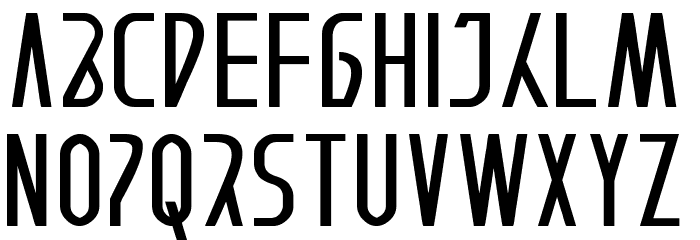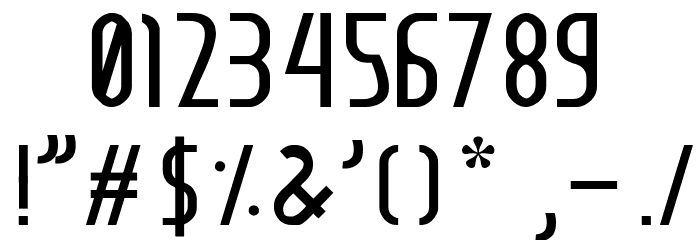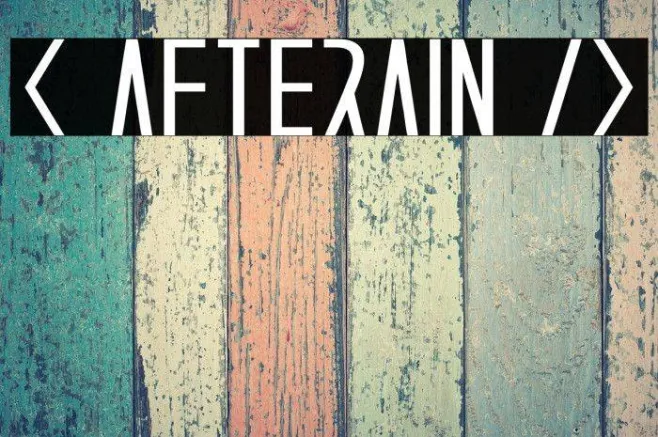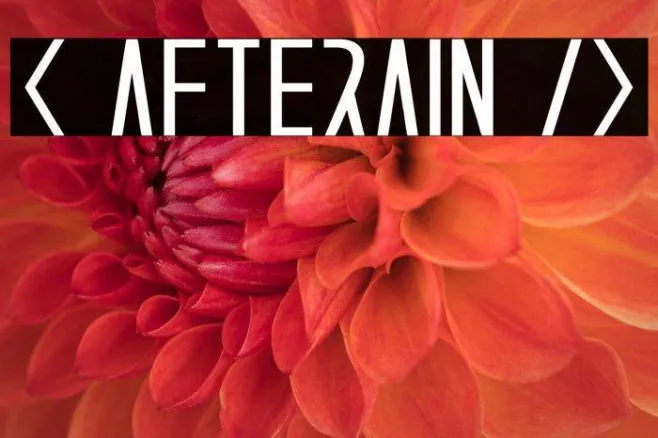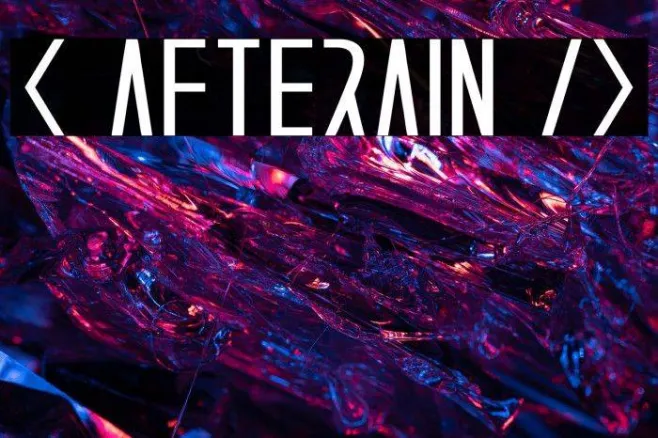
< AFTERAIN /> Font
This font features a modern and geometric design with sharp angles and clean lines. The uppercase letters are distinct with a futuristic appearance, while the lowercase letters maintain a consistent style that complements the uppercase. The numerals are bold and easy to read, fitting well with the overall aesthetic. Special characters are designed to match the angular and sleek look of the alphabet, making this font suitable for a variety of digital and print applications. The uniformity in stroke width adds to its modern appeal, making it ideal for projects that require a contemporary and edgy feel.
A modern, geometric font with sharp angles and clean lines.
- Proposed Projects: Ideal for branding, digital media, posters, and futuristic designs.